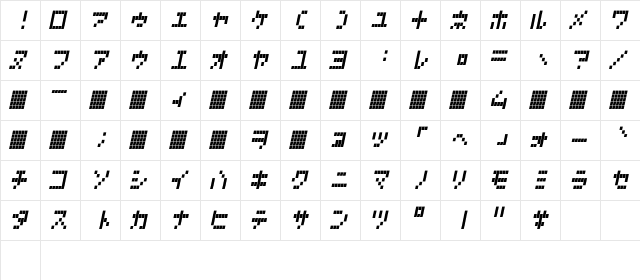
LCDK Italic Font Preview
LCDK Italic
Design Context for LCDK Typeface
LCDK is a composed and adaptable typeface that performs quietly and consistently across a wide range of design contexts. Its italic angle brings a sense of urgency and motion to the letterforms.
Pro Tip: Use LCDK for emphasis, pull quotes, and subheadings where its slanted energy can add rhythm to the layout.